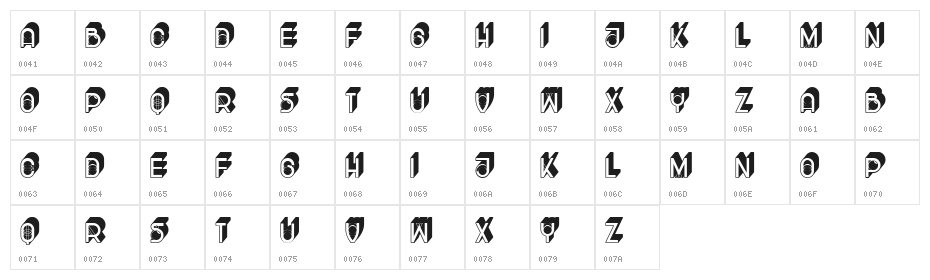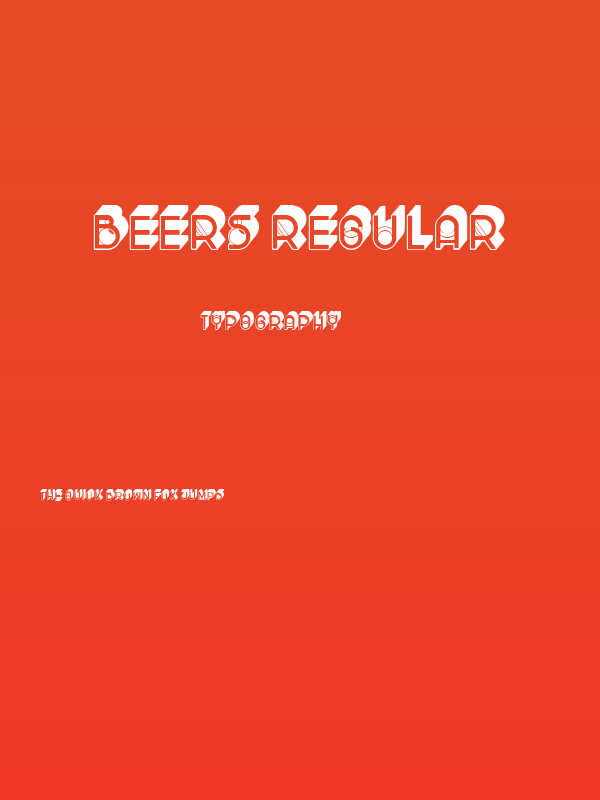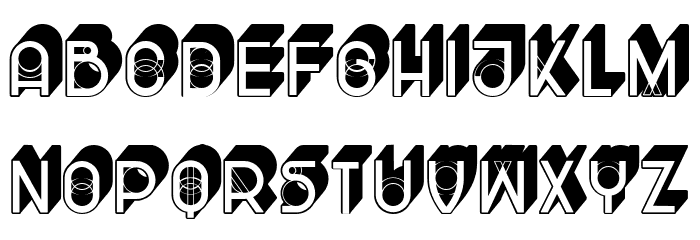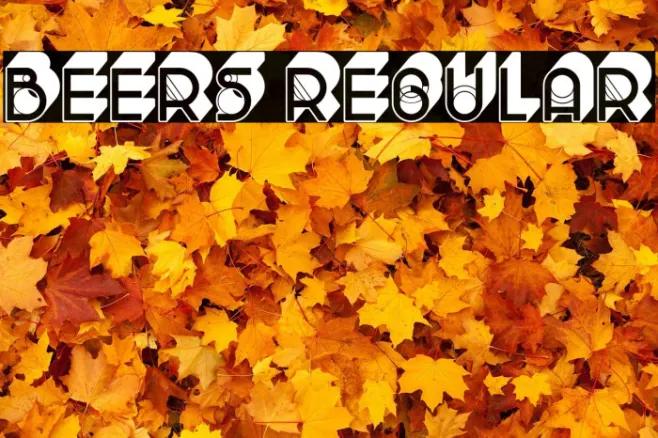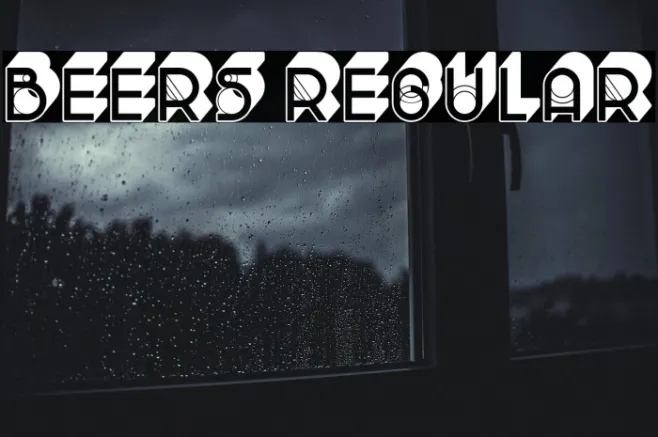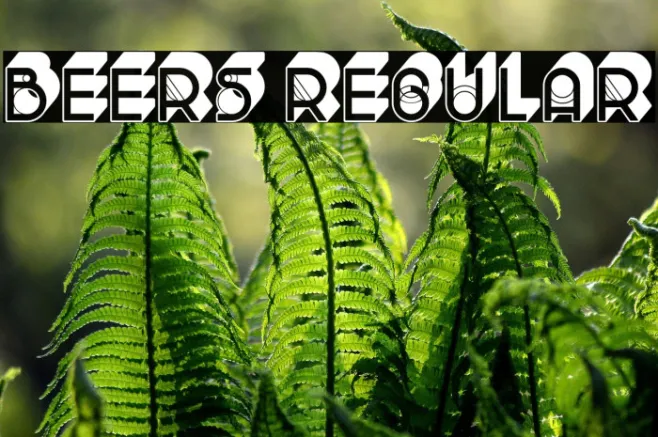
Beers Regular Font
Beers Regular Description
This font features a bold, geometric design with a distinct three-dimensional effect. Each character is crafted with a combination of solid fills and outlined shapes, creating a layered appearance that adds depth and intrigue. The uppercase letters are particularly striking, with angular lines and sharp edges that convey a sense of modernity and strength. The use of negative space within the characters enhances the visual complexity, making it ideal for eye-catching designs. The font's unique style is well-suited for projects that require a bold statement, such as branding, posters, and headlines.
| Proposed Projects | Ideal for branding, posters, headlines, and any design requiring a bold statement. |